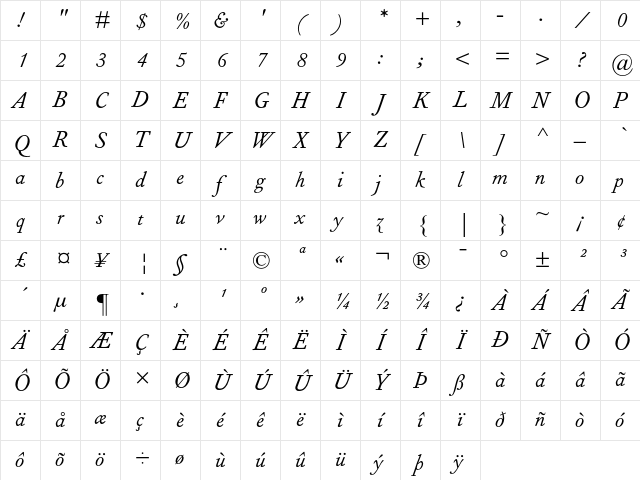
Complete Fournier MT Italic Tall Caps glyph index. Displaying only characters natively supported by Fournier MT Italic Tall Caps font.
Fournier MT is a composed and adaptable typeface that performs quietly and consistently across a wide range of design contexts. The slanted form adds forward momentum and visual energy.
Pro Tip: Use Fournier MT for emphasis, pull quotes, and subheadings where its slanted energy can add rhythm to the layout.